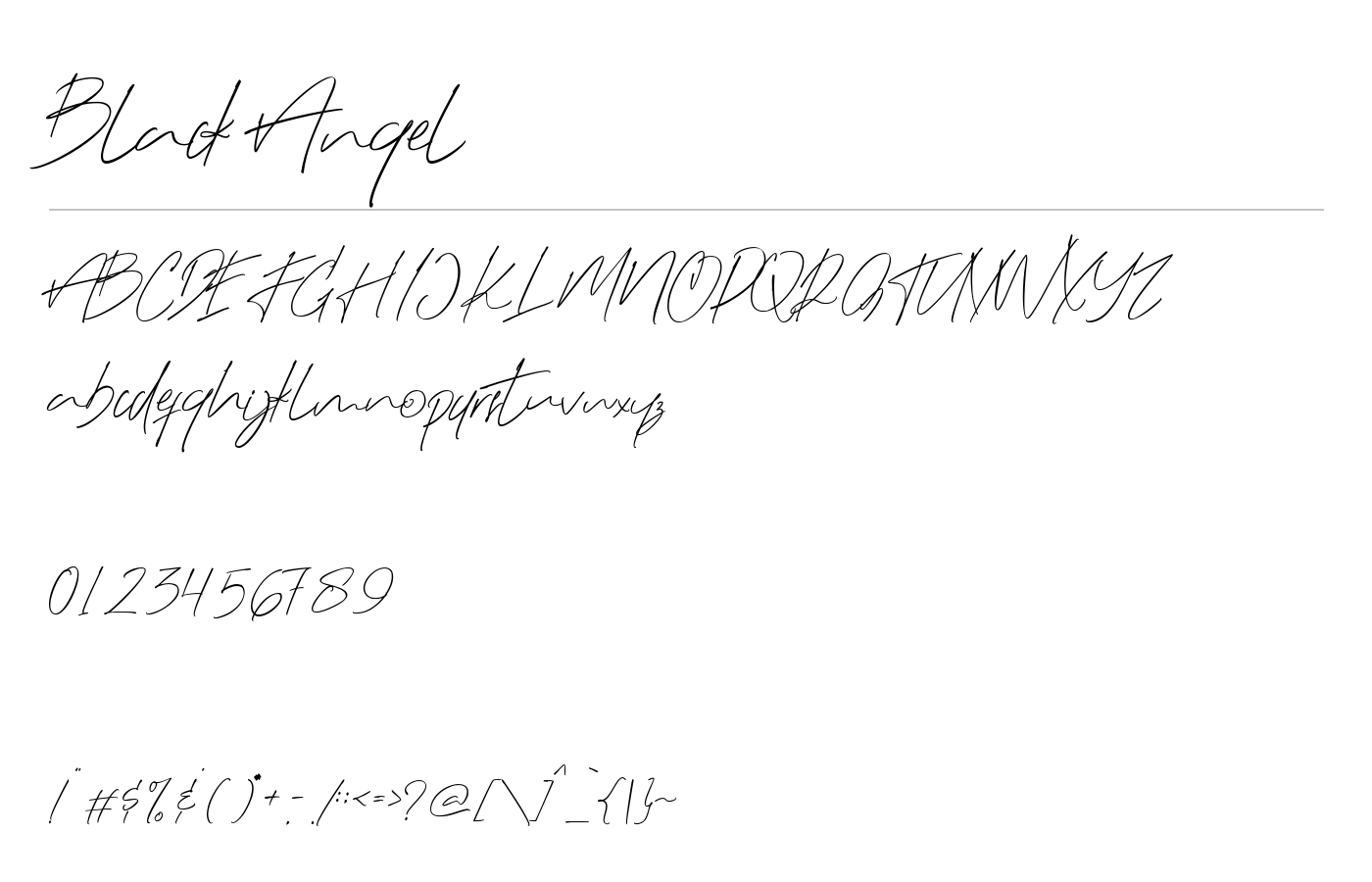
Black Angel is a delicate, handwritten script font with a light, airy feel and elegant, flowing lines. Its narrow, tall letterforms and subtle slant create a modern yet personal style, making it perfect for sophisticated branding, invitations, and editorial use where a refined, artistic touch is desired. This font’s unique charm shines in projects that benefit from a handwritten, stylish, and intimate character.
Black Angel Font
About Black Angel Font
| Font family | Black Angel Font |
| Designer | GlyphStyle |